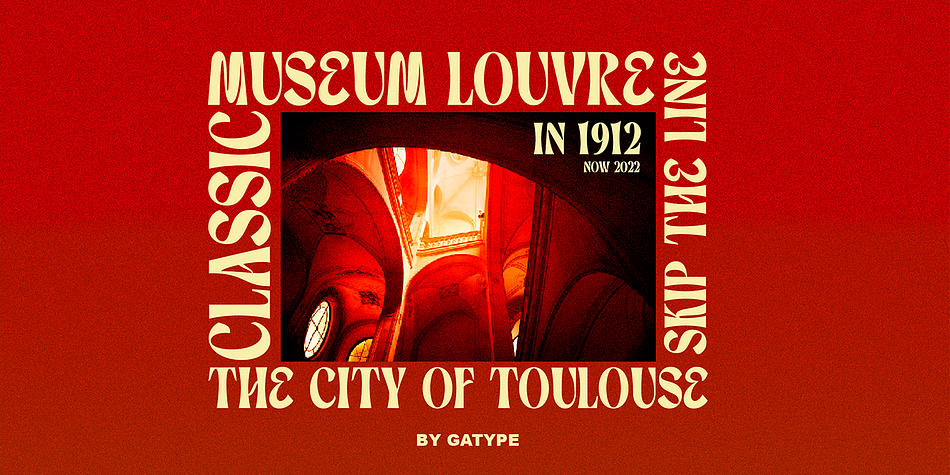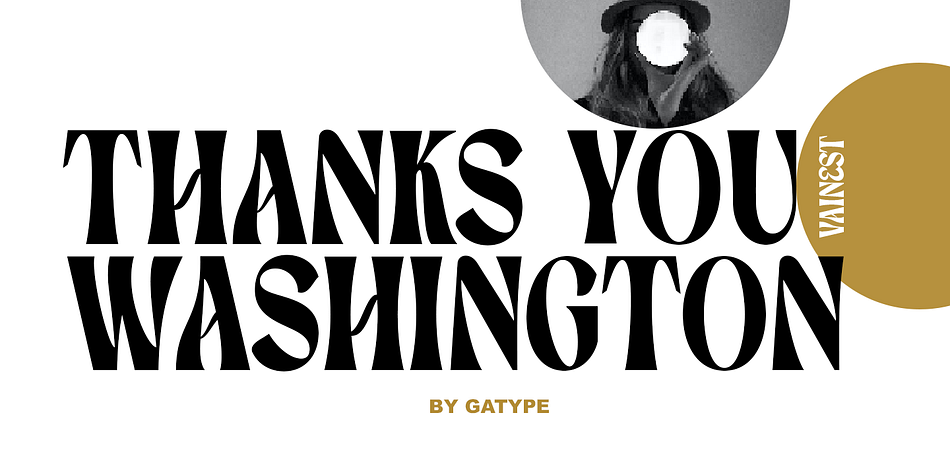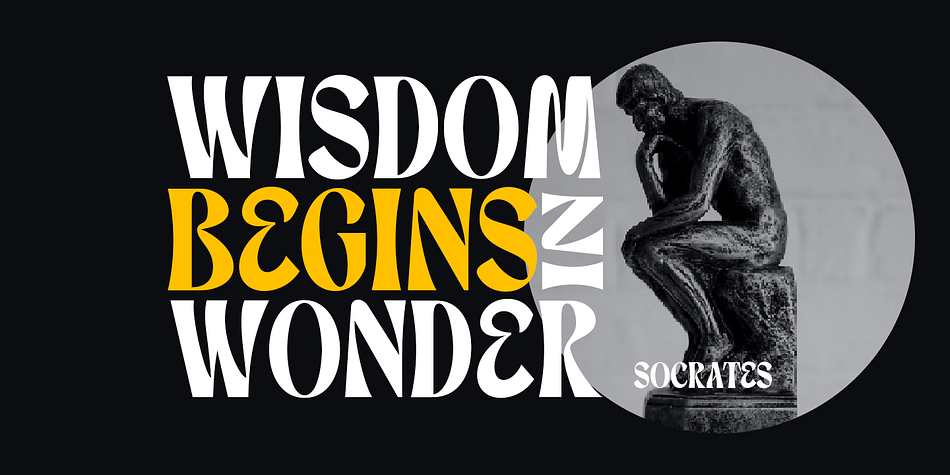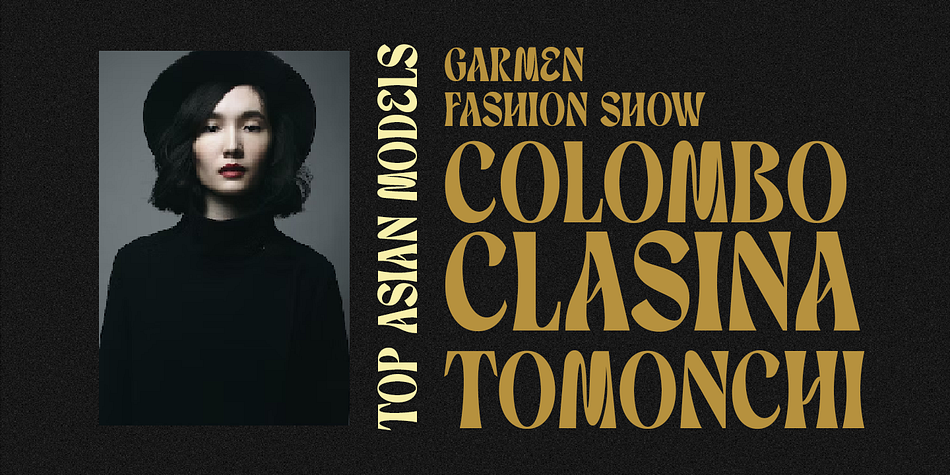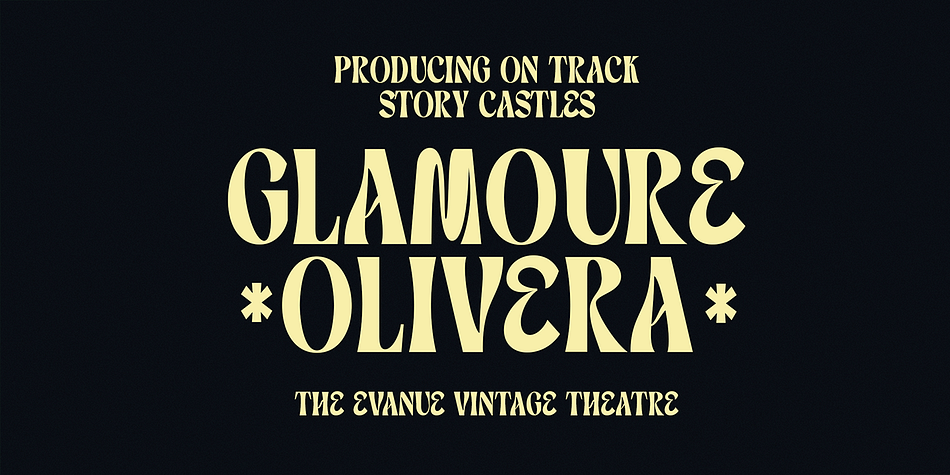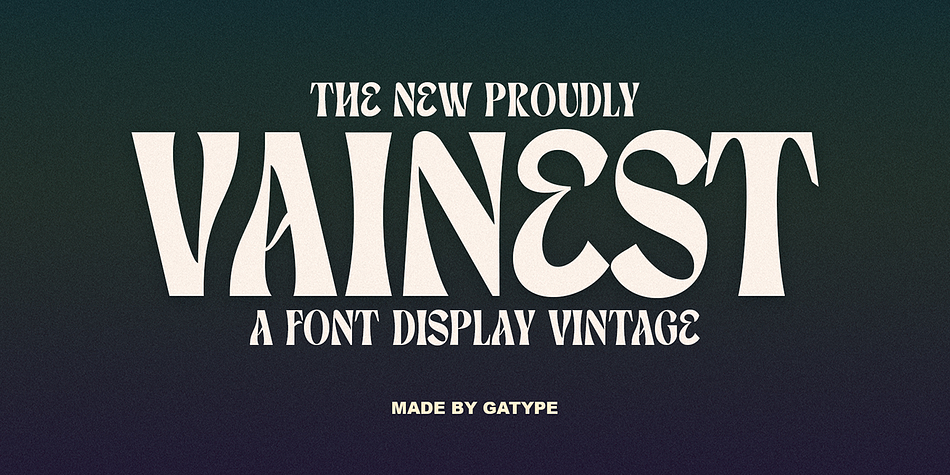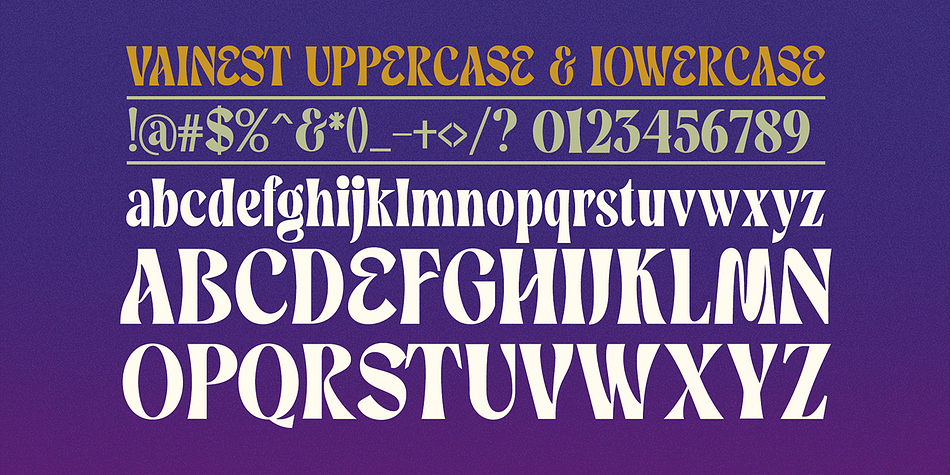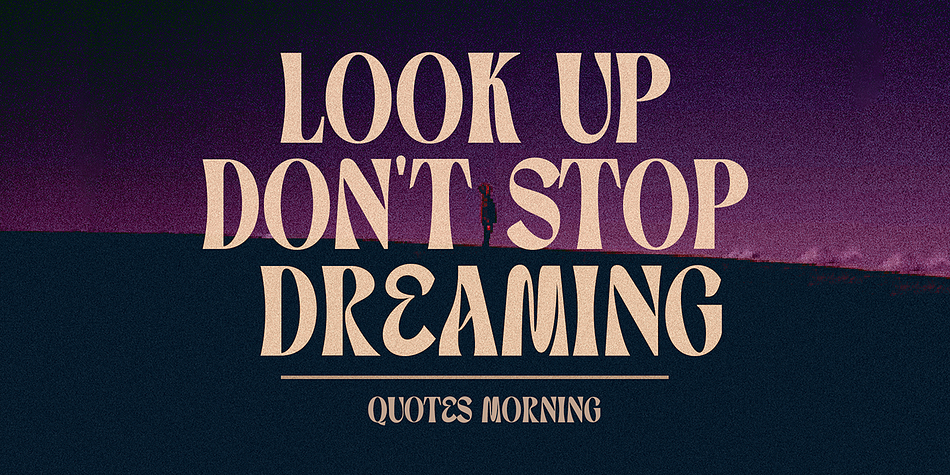
Vainest
Vainest is a retro font family published by Gatype.
Vainest Serif vintage style font It has a modern and retro look. Comes with different styles, really helps to create amazing logos, quotes, posts, blog posts. branding projects, magazine imagery, book and billboard displays, and more.